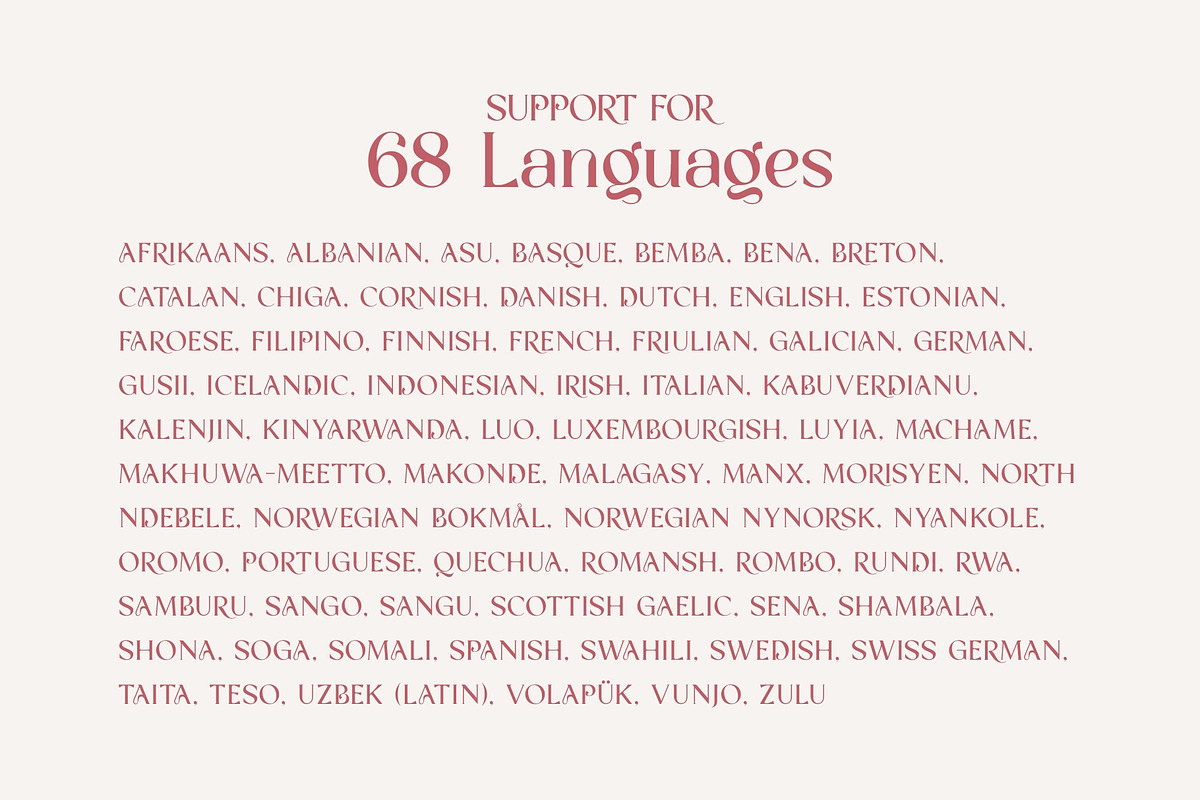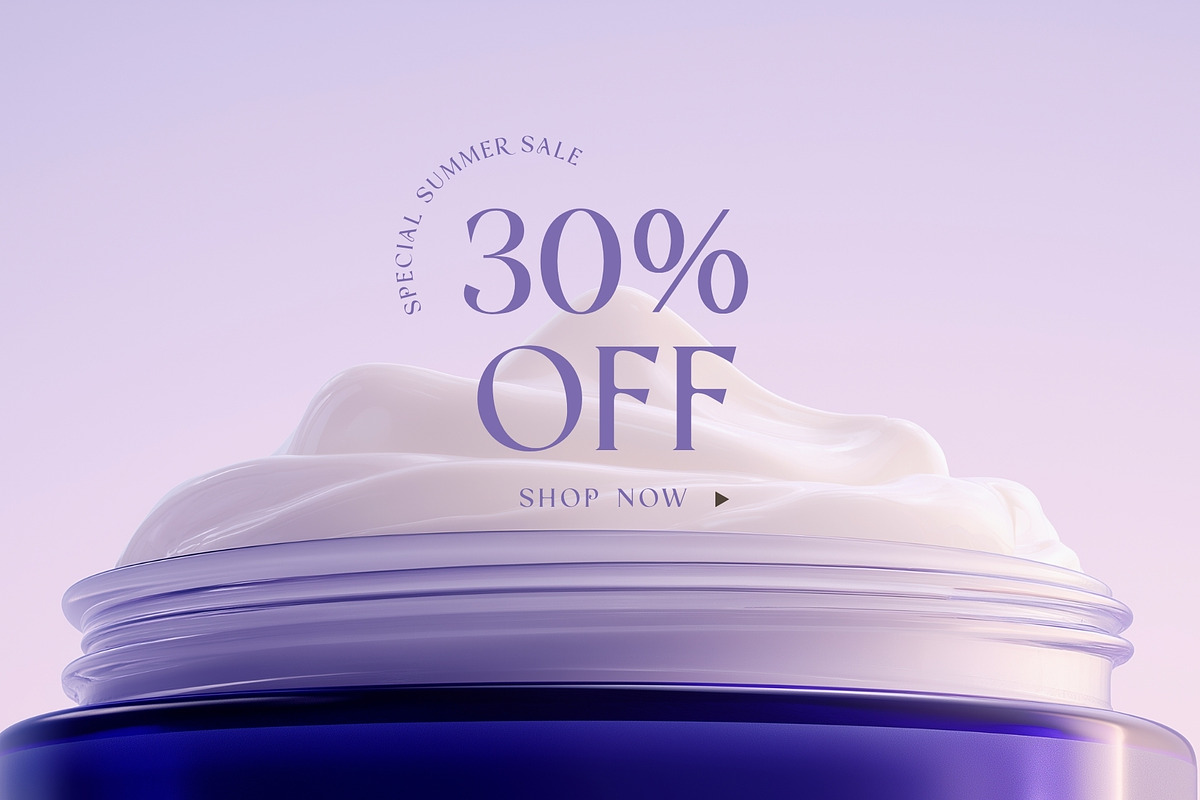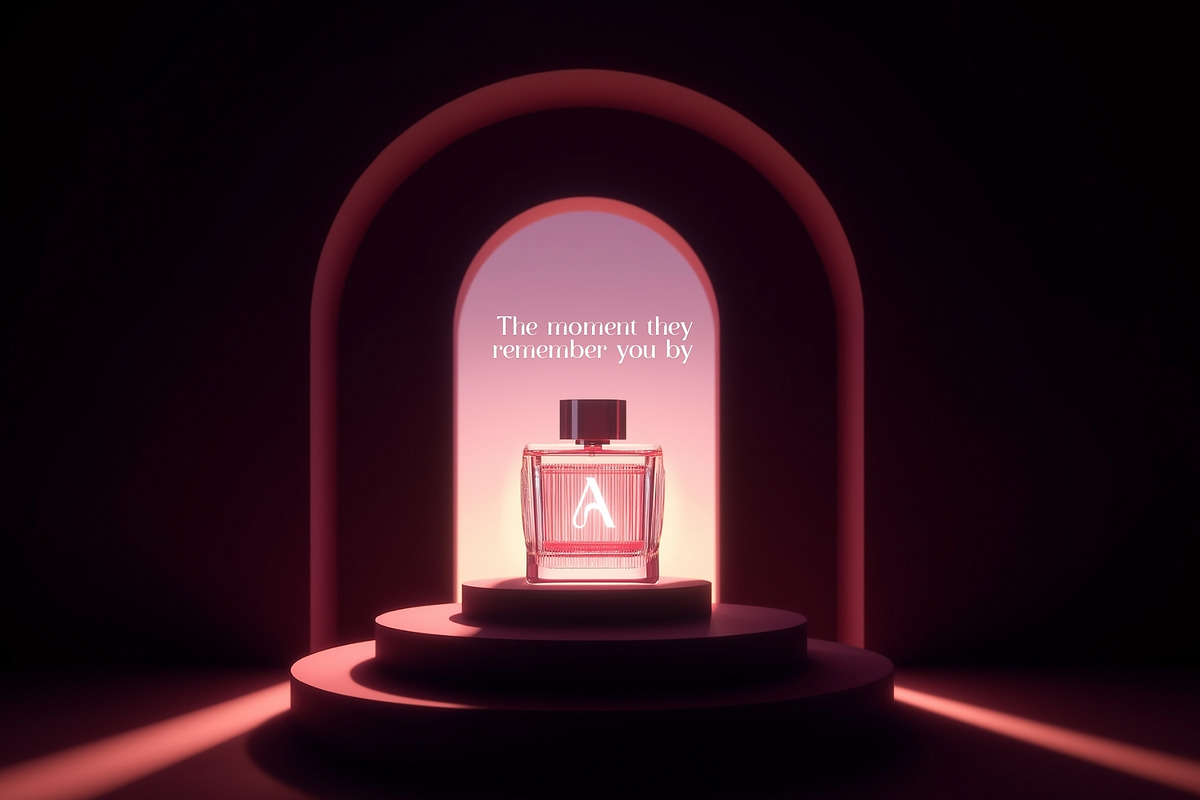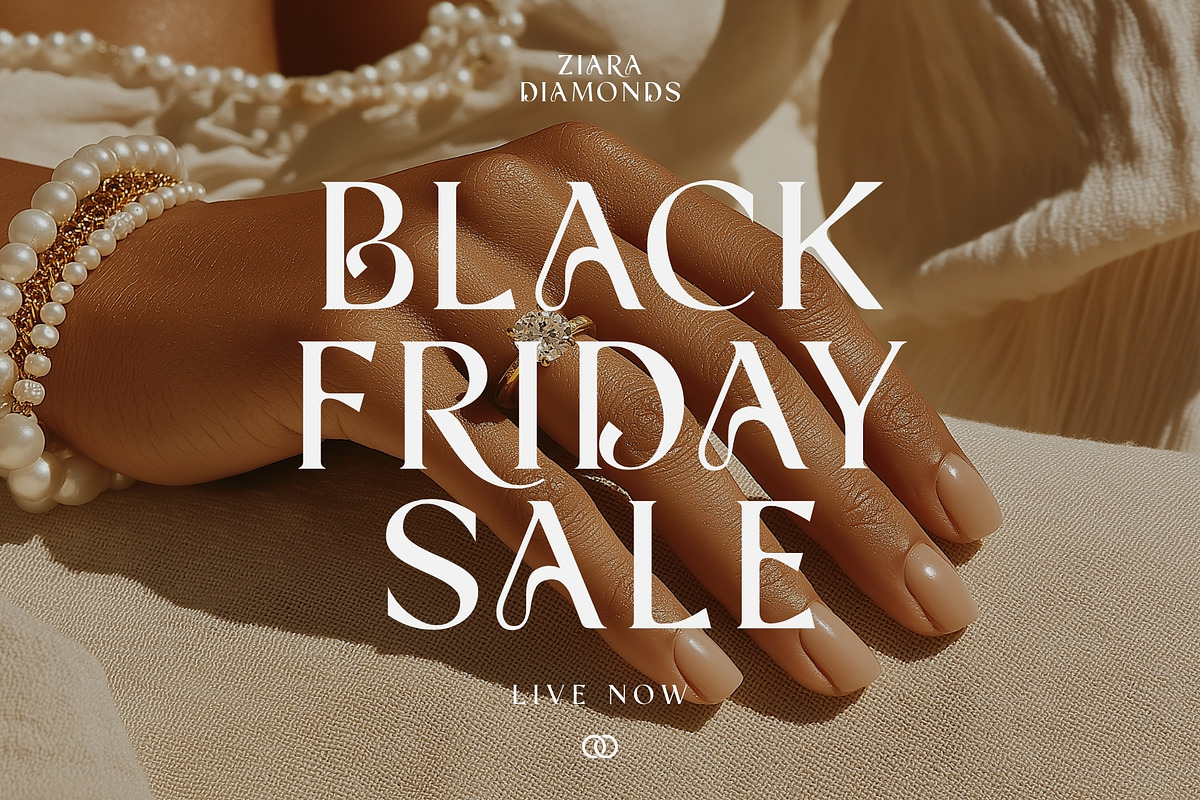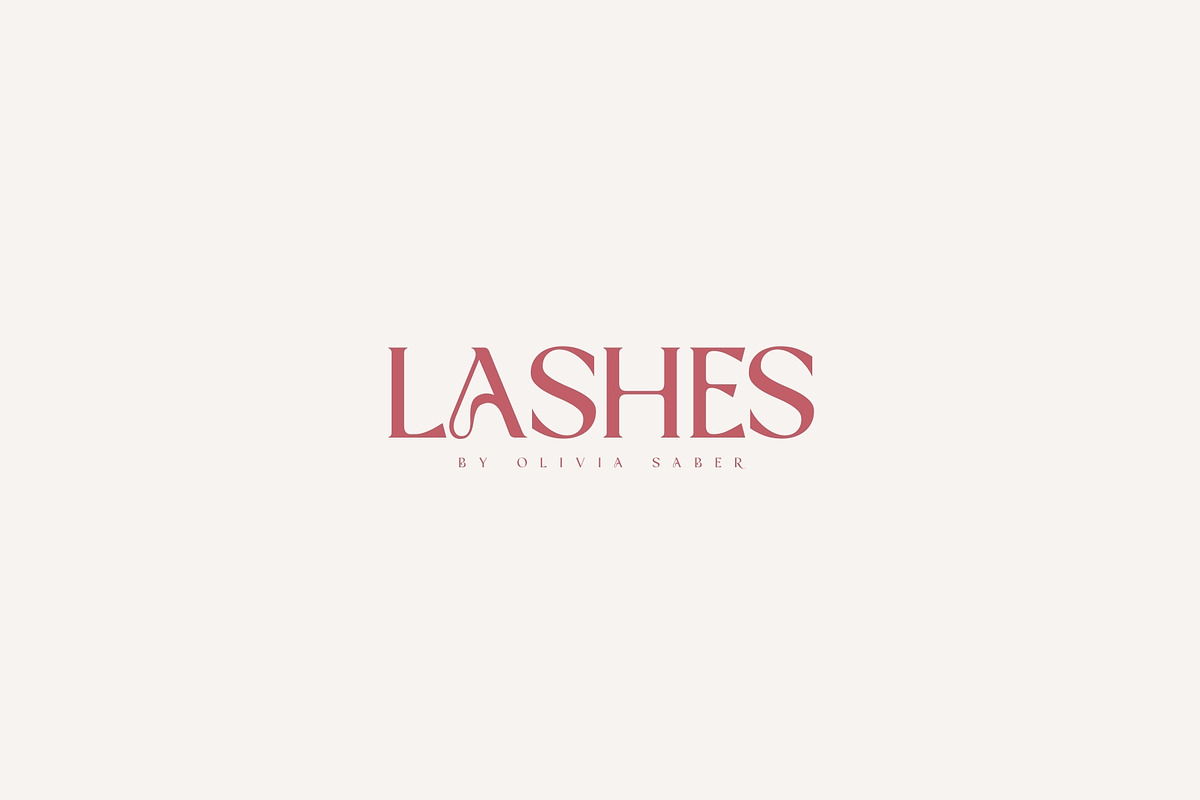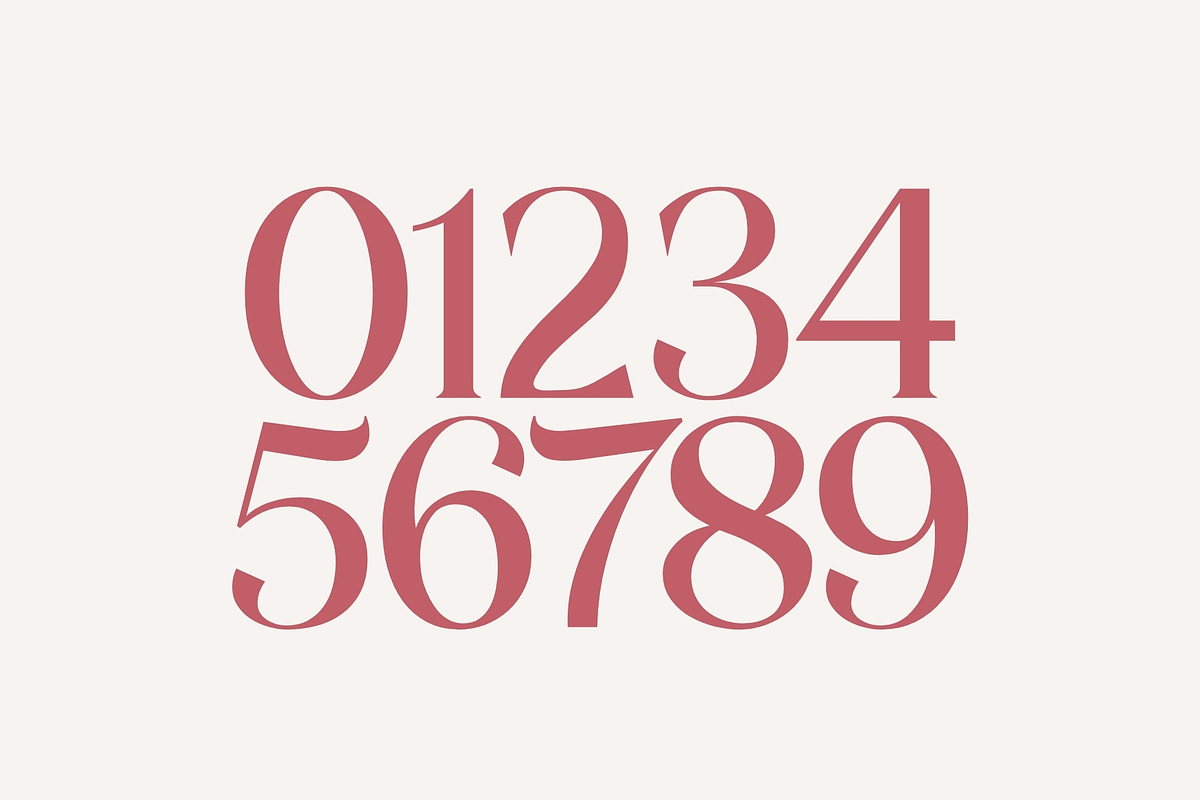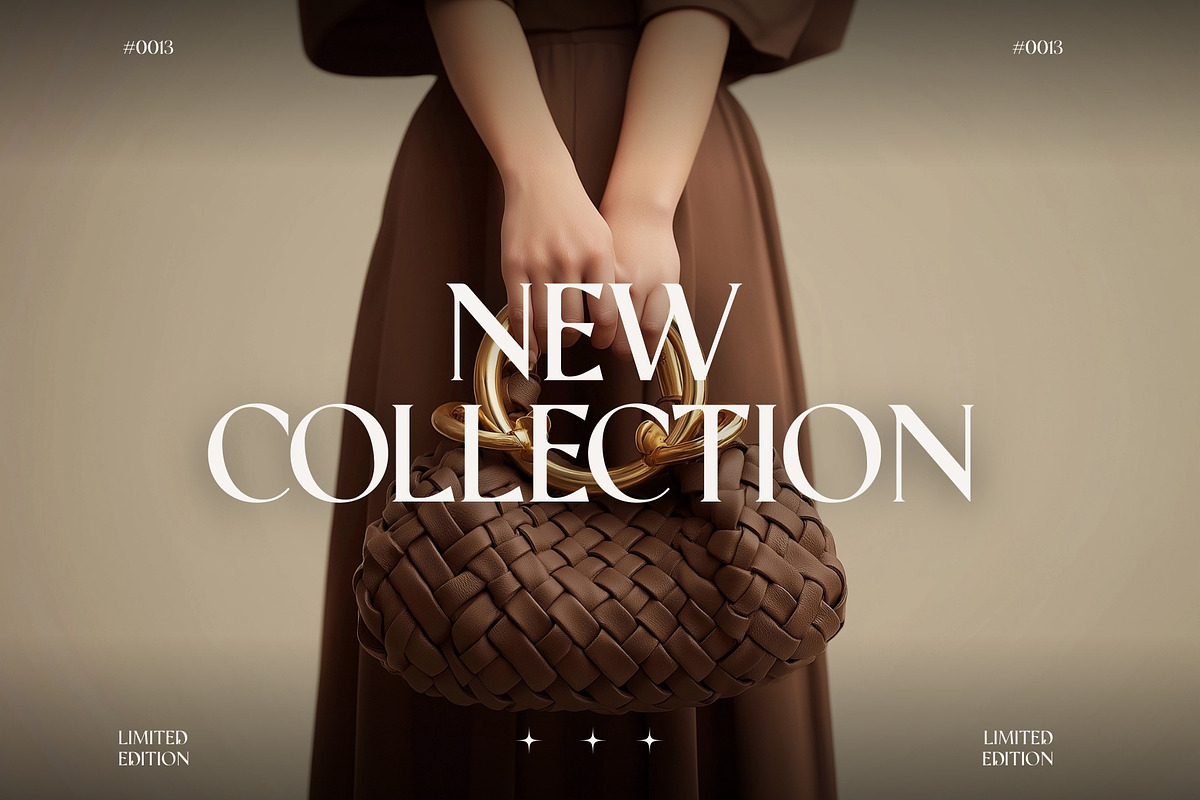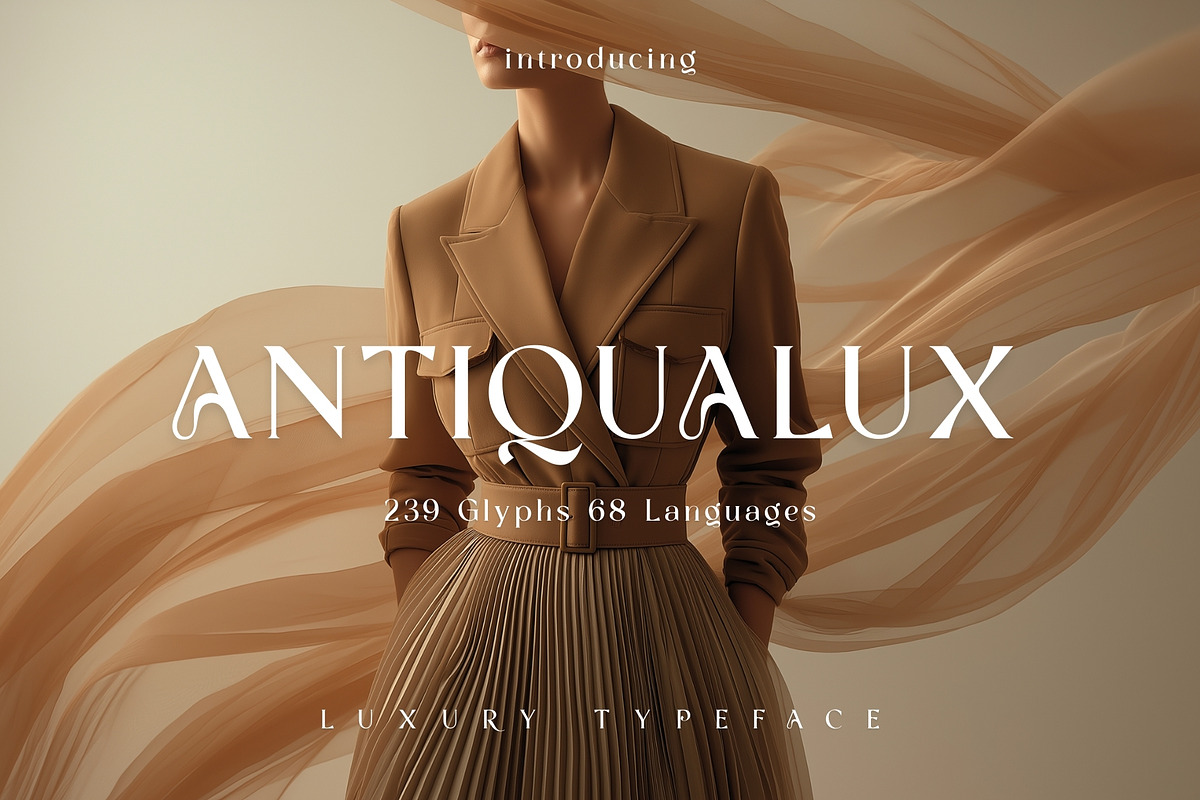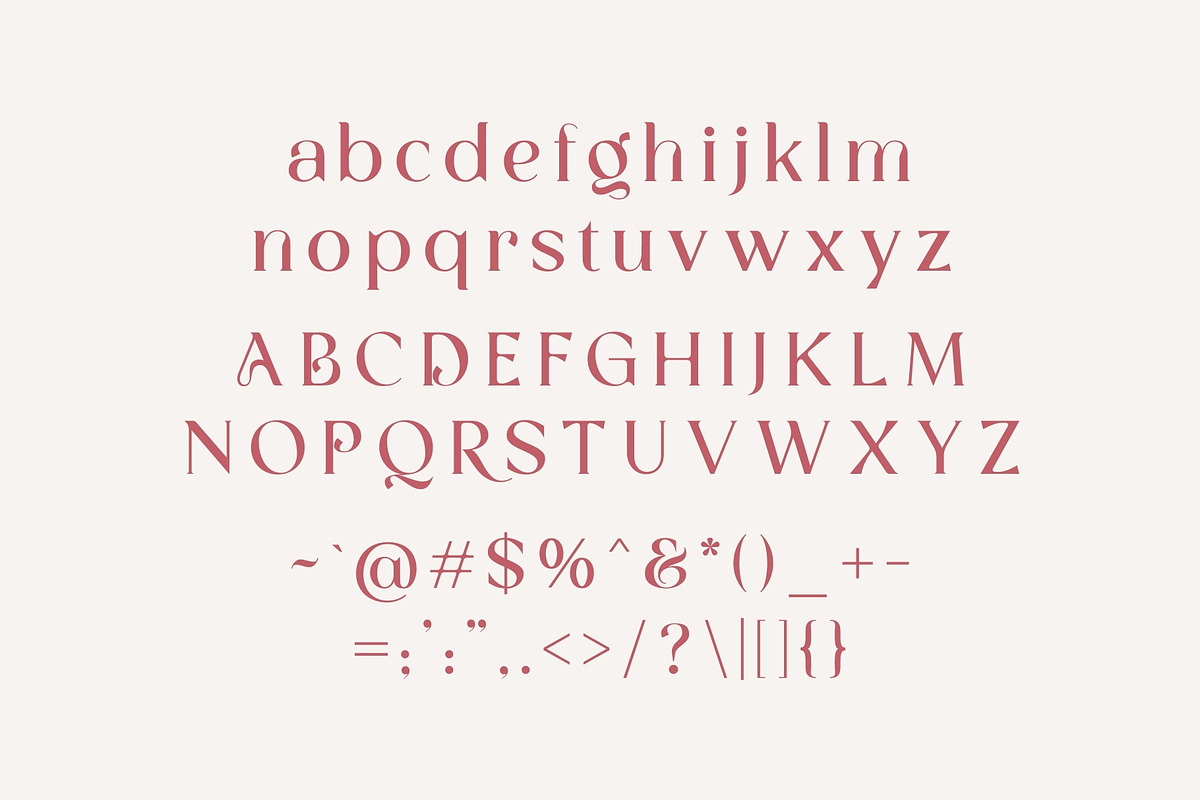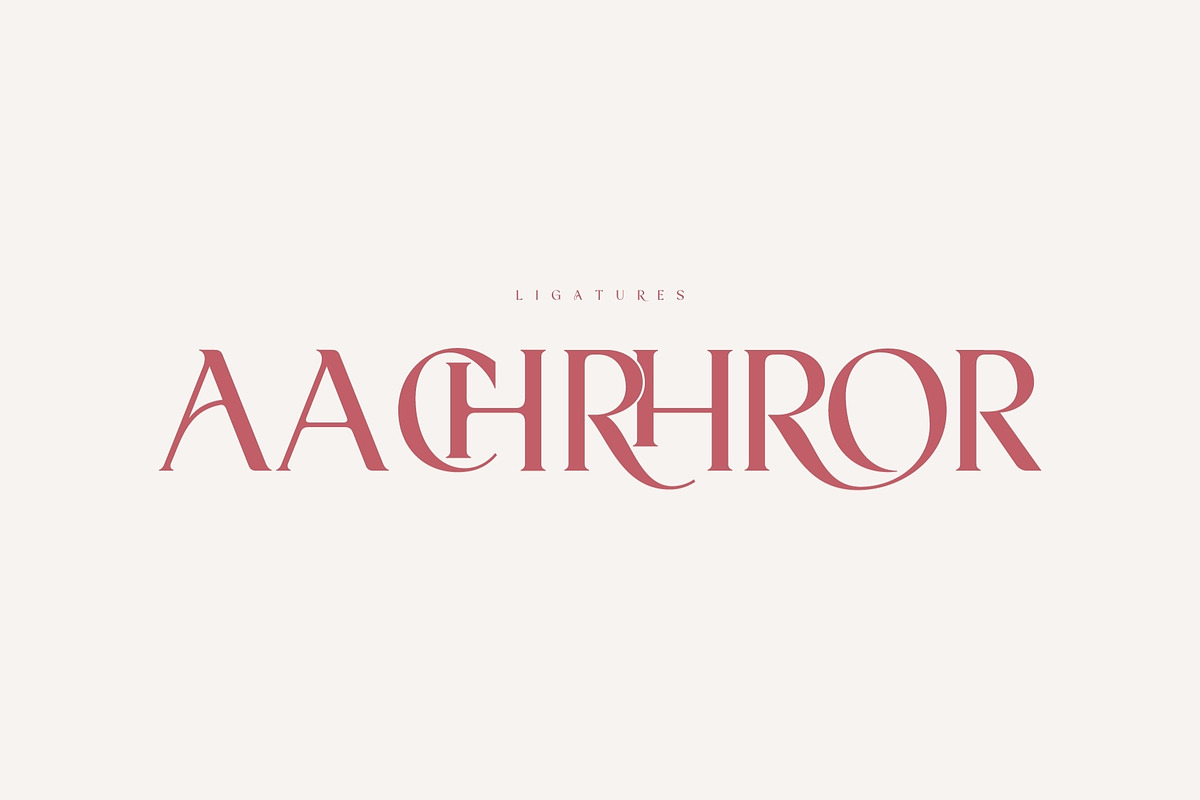
Antiqualux - Luxury Cosmetic Type
Elevate your design projects with Antiqualux, a luxurious and impeccably crafted typeface made for brands that demand refinement. Featuring 239 beautifully designed glyphs and supporting 68 languages, Antiqualux blends timeless elegance with contemporary sophistication to create a visual experience that feels both iconic and unforgettable.
Every curve, serif, and stroke has been shaped with precision, giving the typeface a graceful flow that radiates confidence and high-end appeal. From its subtle contrasts to its commanding letterforms, Antiqualux exudes a level of craftsmanship that instantly elevates any design it touches.
Perfect for cosmetic companies, luxury fashion houses, modern boutiques, beauty products, magazines, packaging, and premium branding, this typeface adds a polished, upscale presence that turns ordinary projects into statements of class.
Choose Antiqualux when you want your typography to whisper elegance, speak luxury, and leave a lasting impression.